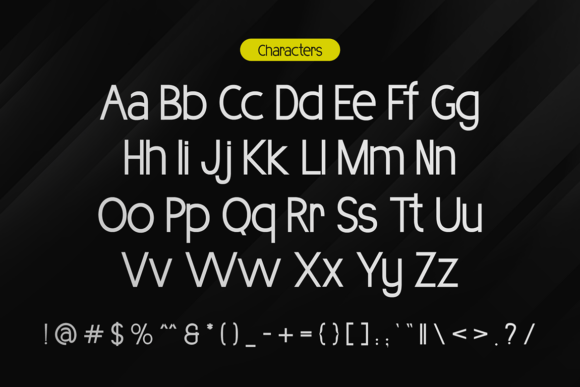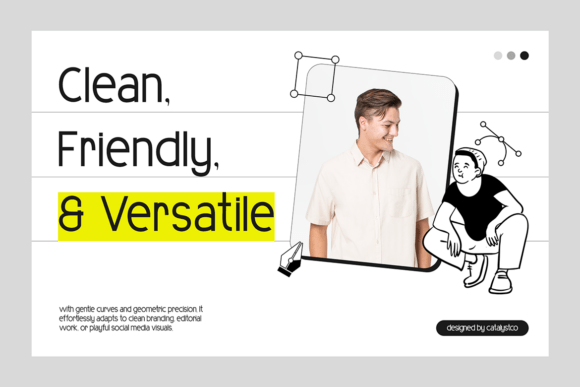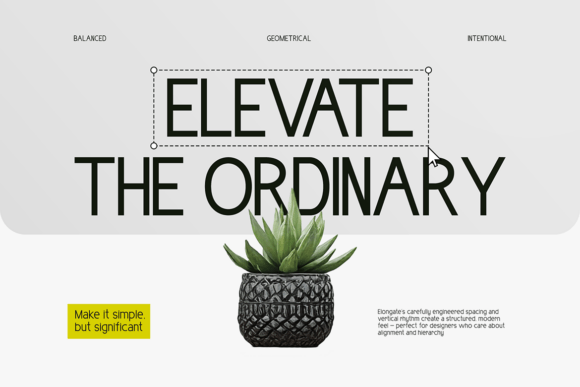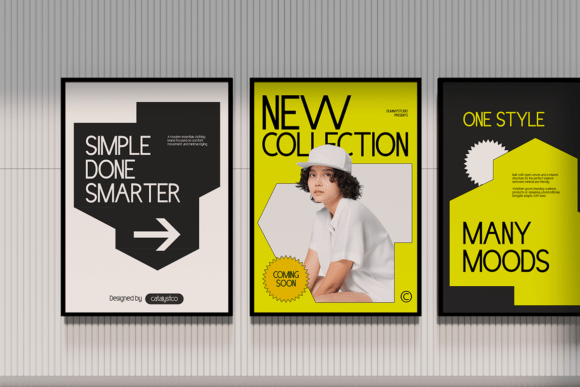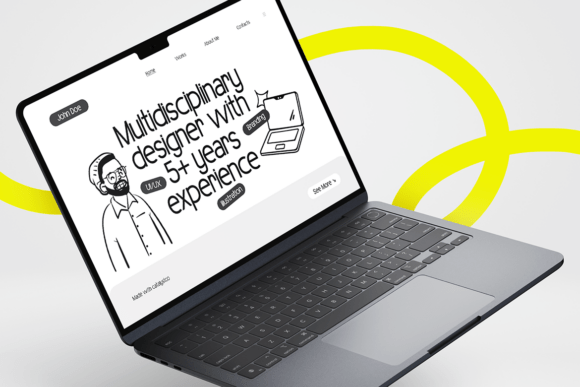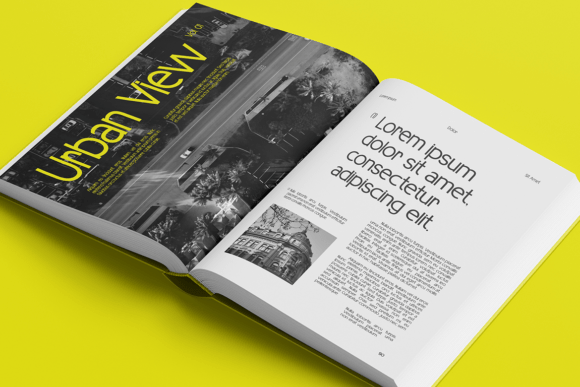
The Elongate Font: A Modern Marvel for Designers
I’ll never forget the struggle I faced while working on a branding project for a tech startup. My client wanted a font that screamed innovation, sleekness, and modernity. I scoured the internet, tried countless fonts, but nothing seemed to fit the bill. That was until I stumbled upon Elongate Font. Its futuristic, bold look instantly resonated with my client’s vision. In this article, I’ll share my experience with Elongate Font, its features, and how to make the most of it in your designs.
An Honest Review of Elongate Font
- ✨ Modern and Versatile: Elongate Font is a modern and versatile display typeface that adapts seamlessly to various design applications.
- ✅ High-Impact Headlines: Its sleek, condensed letterforms make it perfect for creating high-impact headlines that grab attention.
- ✅ Clear and Bold: The elongated strokes provide a strong presence while maintaining clarity, even at smaller sizes.
- ✅ Digital Media Friendly: Elongate Font shines in digital media, making it an excellent choice for website headers, social media graphics, and more.
While Elongate Font is an excellent choice for many design projects, it’s not without its quirks. ⚠️ Some users may find that the font’s condensed letterforms can make it challenging to read at very small sizes or in body text. Additionally, the font’s stylistic alternates may not work well with all design applications or platforms.
The Backstory of Elongate Font
Elongate Font was designed by a team of typographers who wanted to create a modern and versatile display typeface. Inspired by the sleek lines and futuristic feel of modern technology, they crafted a font that’s both bold and elegant. The design process involved experimenting with various letterforms and stroke styles to achieve the perfect balance of clarity and presence.
| Font Name | Elongate Font |
| What is Elongate Font best suited for? | Elongate Font is ideal for high-impact headlines, branding, and digital media. |
| Can I use Elongate Font for body text? | While Elongate Font can be used for body text, its condensed letterforms may make it challenging to read at small sizes. |
| Is Elongate Font suitable for print design? | Yes, Elongate Font can be used for print design, but it’s best suited for headlines and titles rather than body text. |